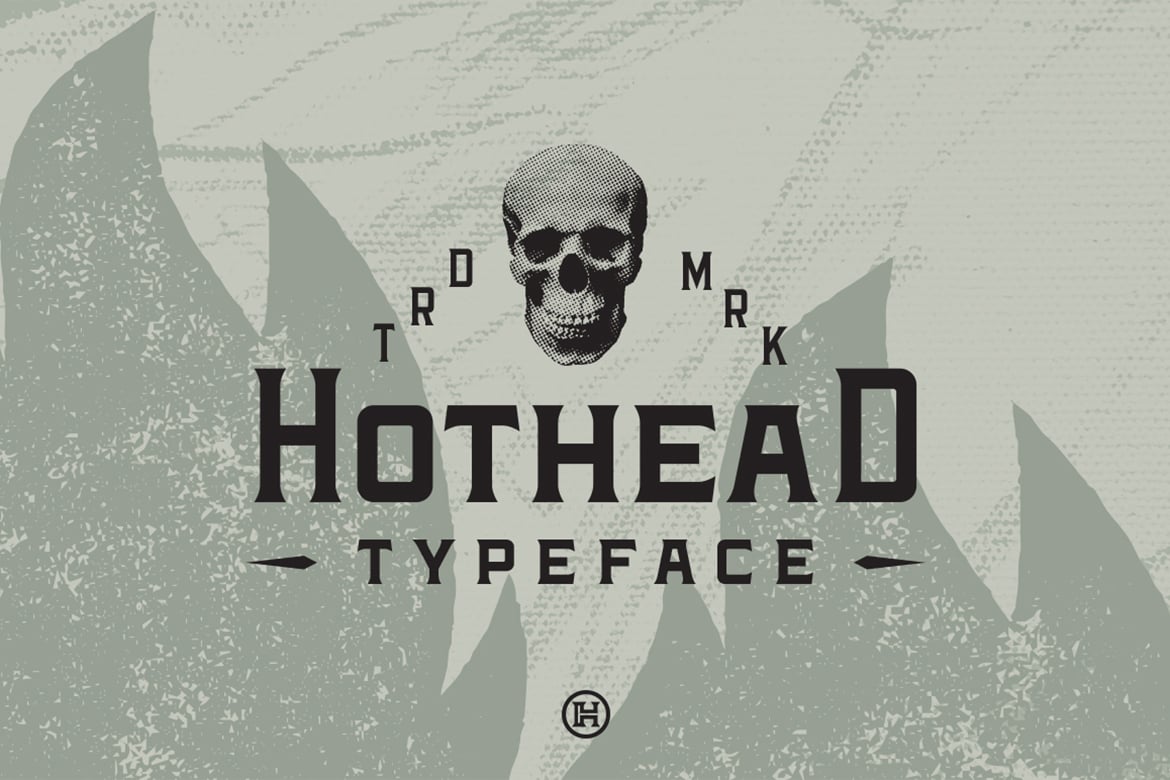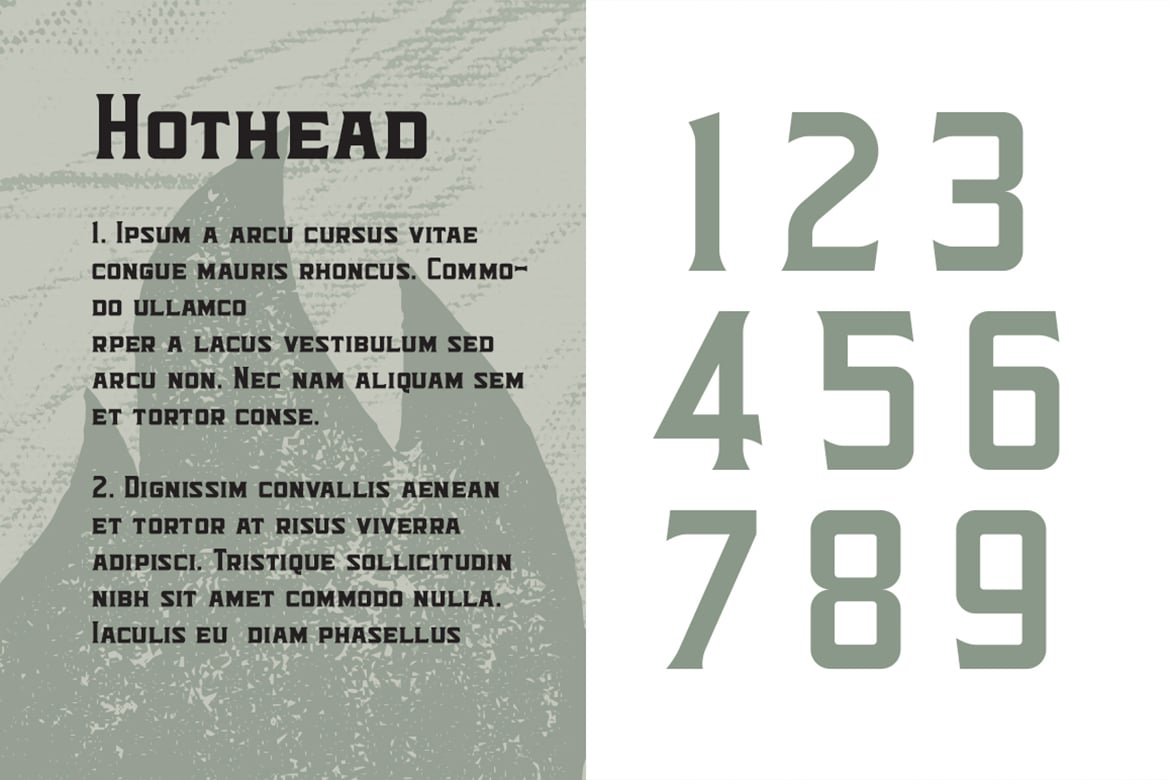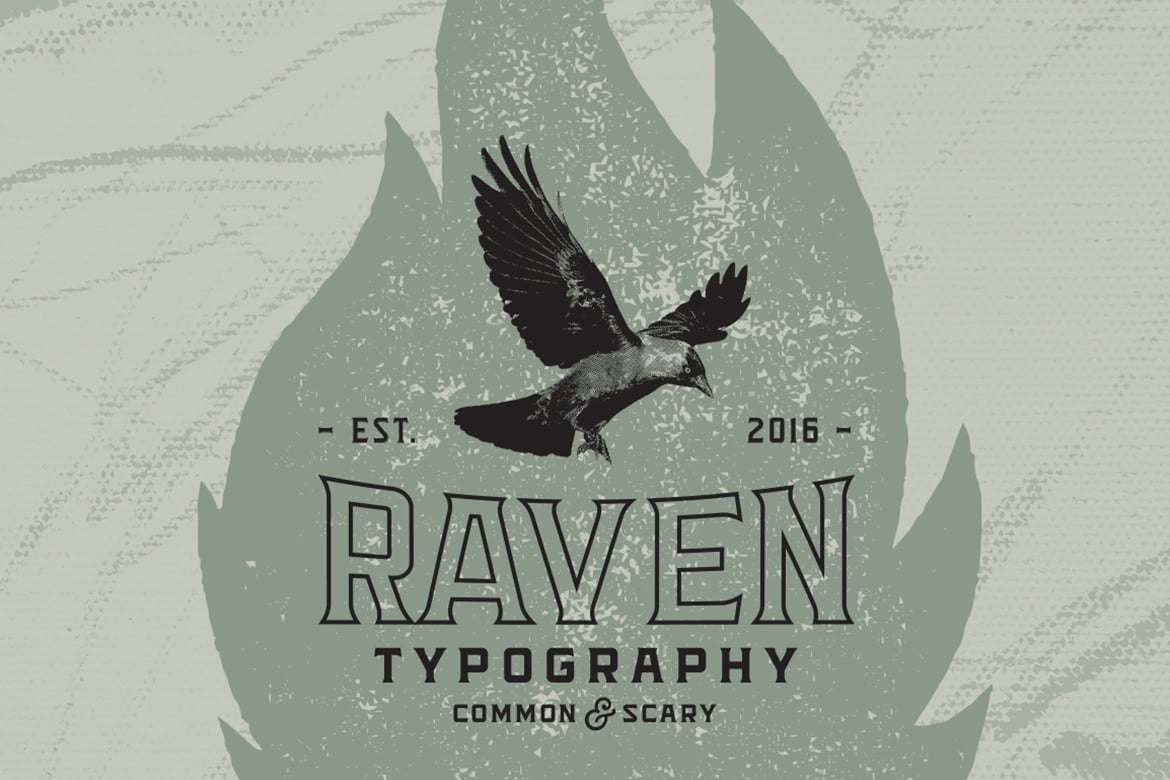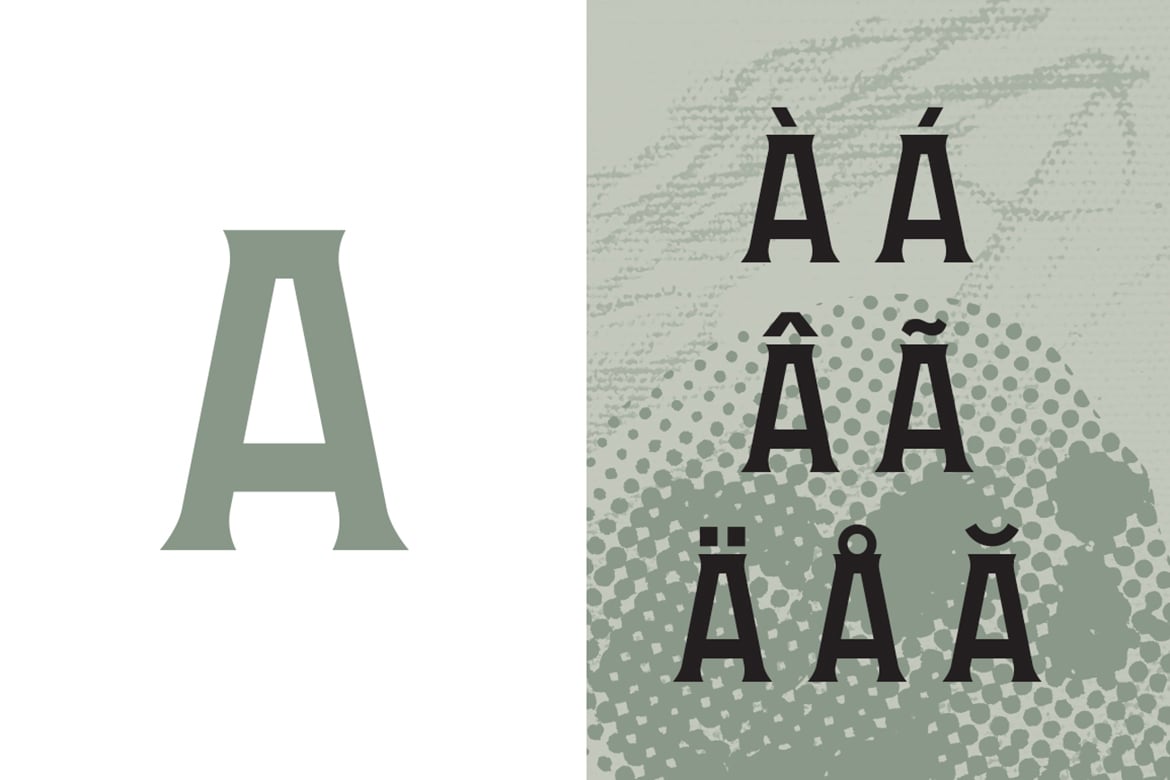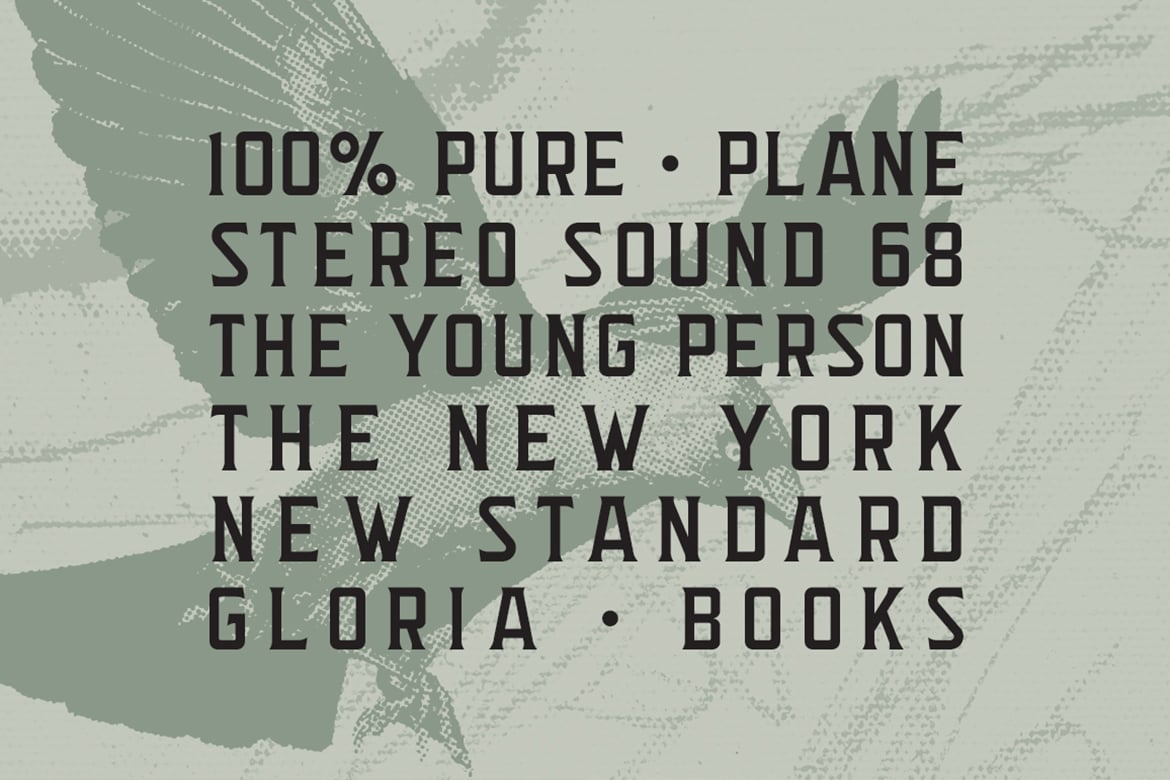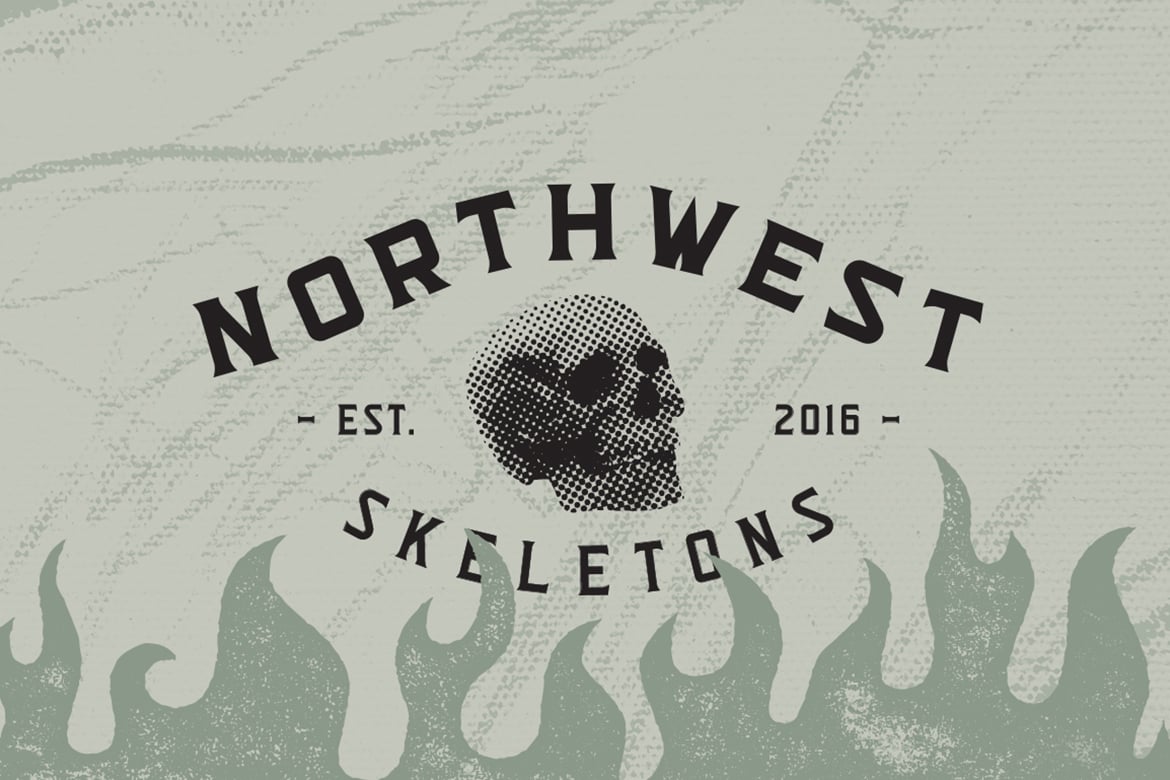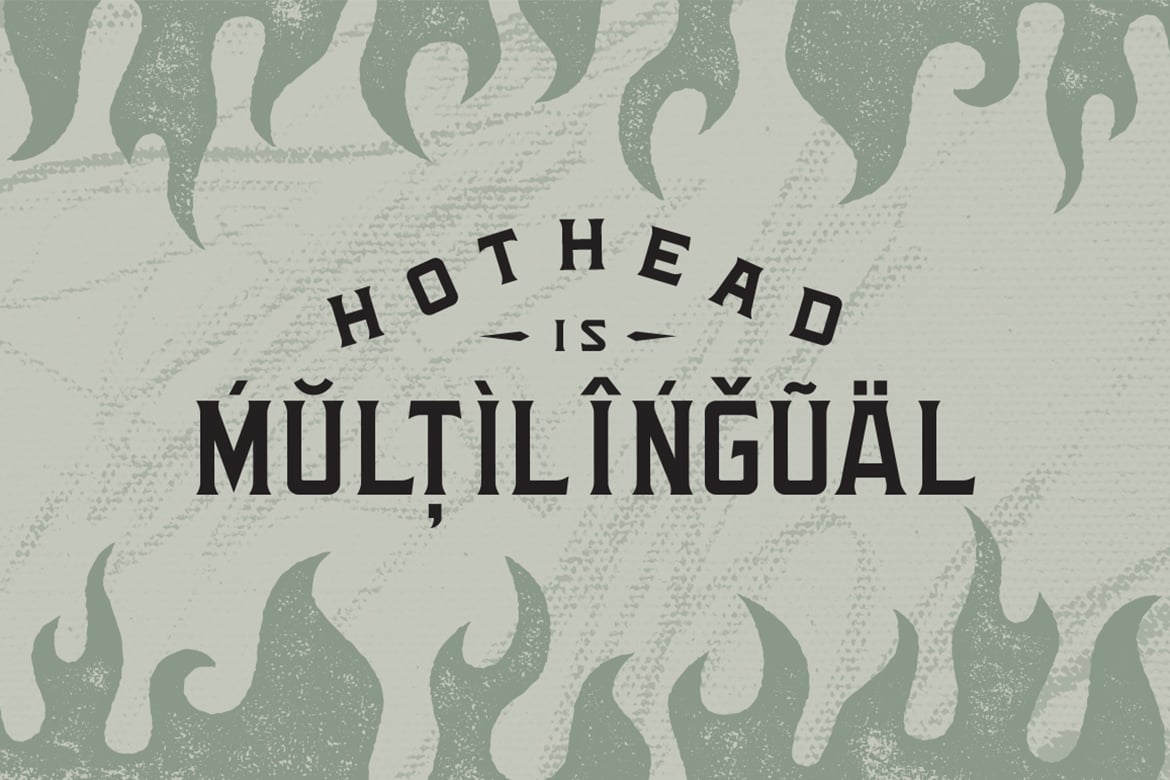
Hothead Western Font
Introducing HOTHEAD, a upper and lower uppercase serif font inspired by the western American culture. This font is traditional yet modern, still having a strong, western vintage touch. HOTHEAD has 258 glyphs, extensive latin script language support, characters set A-Z , numerals and punctuation, all carefully designed.
This font allows versatile design options, being the perfect tool in creating bold logos, headers, posters and stand out packaging designs.
Upper and lowercase font